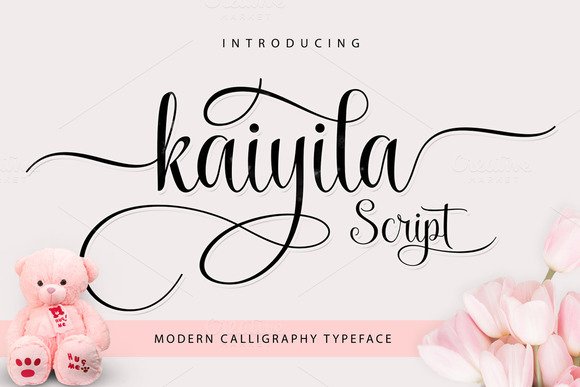
Kaiyila Script Font
Kaiyila Script a new fresh & modern script with a handmade calligraphy style, decorative characters and a dancing baseline! So beautiful on invitation like greeting cards, branding materials, business cards, quotes, posters, and more!!
Kaiyila Script including alternate glyph and beautiful swirl in a font including stylistic sets, Ligatures etc. The Open Type features can be accessed by using Open Type savvy programs such as Adobe Illustrator CS, Adobe Indesign & CorelDraw X6-X7 and Microsoft Word. And this Font has given PUA unicode (specially coded fonts). so that all the alternate characters can easily be accessed in full by a craftsman or designer.